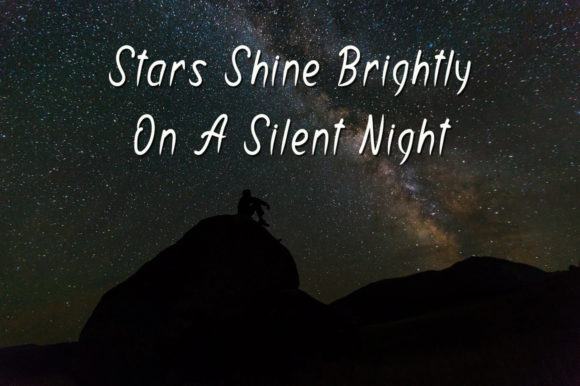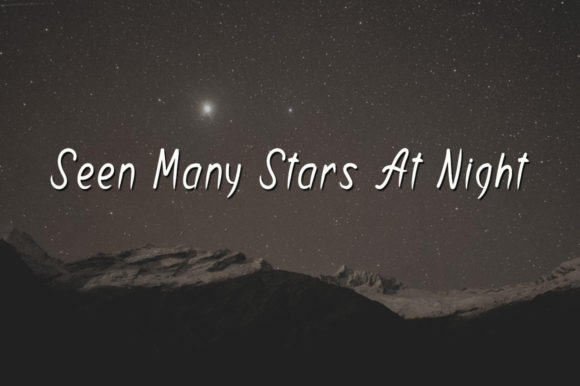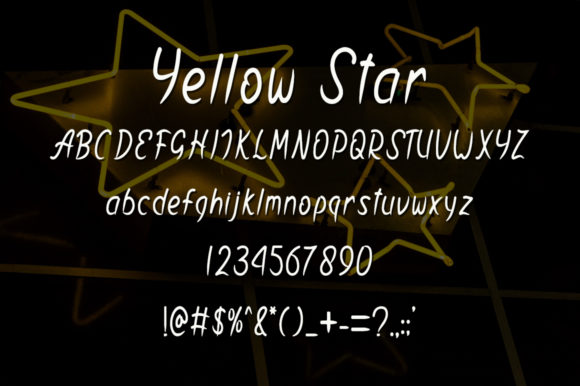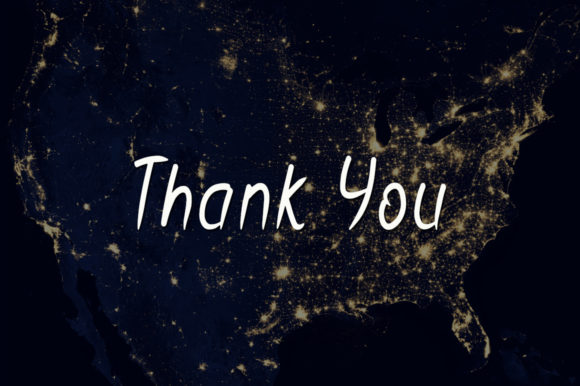
Yellow Star Font
About Yellow Star Font
Introducing “Yellow Star,” a delightful and friendly handwritten font that exudes warmth and charm. With its natural and unique style, “Yellow Star” is incredibly versatile, making it a perfect choice for a wide range of designs. Here are some key features that make “Yellow Star” shine bright:
Sweet and Friendly: The soft and inviting strokes of “Yellow Star” give your text a warm and approachable feel. Its friendly design makes it ideal for creating welcoming and heartwarming designs.
Natural and Unique: “Yellow Star” boasts a distinctive character that sets it apart from standard fonts. Its natural appeal adds a touch of authenticity to your projects, making them stand out with their own personality.
Limitless Creativity: With “Yellow Star,” the sky’s the limit for your imagination. Its incredible versatility allows you to explore countless design possibilities, knowing that each one will be enhanced by the font’s charming style.
Wide Range of Designs: From cheerful greeting cards to playful social media posts, “Yellow Star” is ready to add a touch of magic to any project. It’s the perfect font to bring joy and positivity to your designs.
Embrace the sweetness and friendliness of “Yellow Star” as you embark on your creative journey. Let its natural and unique style become the guiding star for your designs, making them shine bright with warmth and authenticity. With “Yellow Star,” there are no boundaries to your creativity—let your imagination soar and create enchanting designs that leave a lasting impression on your audience.